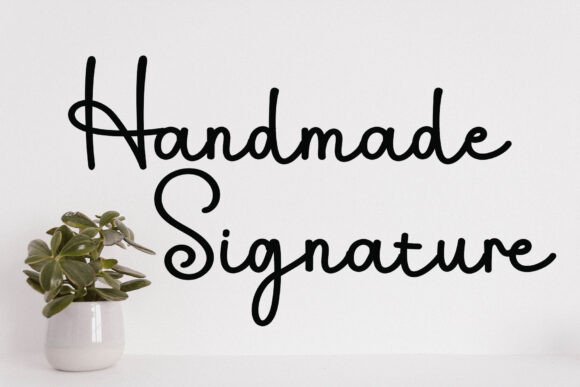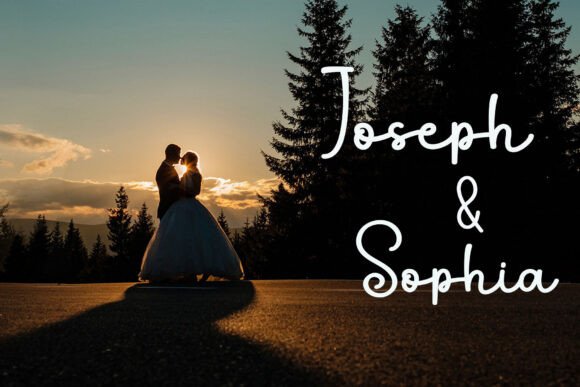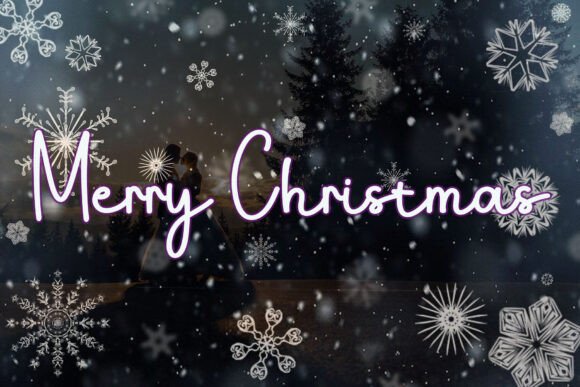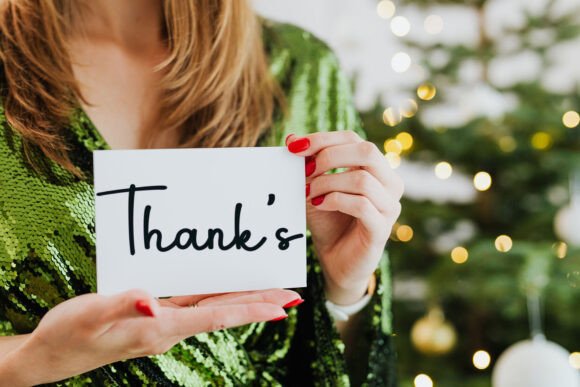
Introduction to Love Bestie Font
Love Bestie is a trendy handwritten font with a contemporary atmosphere and impeccable form, inspired by timeless classic calligraphy.
It will add elegance and class to any of your design projects This font can be used to write various kinds of products according to the aspect of each need.
Key Features of Love Bestie Font